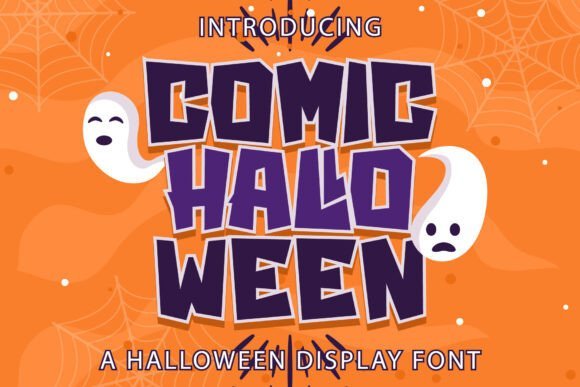
Spook Up Your Designs with Comic Halloween Font
As you sit down to create a spooky Halloween campaign, the blank page stares back at you. You want to evoke a sense of mystery and horror, but the words just aren’t coming together. The lights flicker, the wind howls, and you feel a shiver run down your spine – it’s the perfect time to break out a font that captures the essence of the season.
Enter Comic Halloween Font, a display font that conjures up images of classic horror movies and haunted mansions. With its gothic flair and eerie vibe, it’s the perfect addition to any design project. Whether you’re creating a logo, social media post, or event invitation, Comic Halloween Font will give your design a scary and gripping payoff.
As a designer, you’re always on the lookout for fonts that can elevate your work and set it apart from the crowd. Comic Halloween Font is a valuable addition to your toolkit, offering a unique and versatile style that’s perfect for Halloween-themed projects and beyond.
Comic Halloween Font Key Features
- Font Size: The font comes in a single size, but it is highly scalable and suitable for various font sizes.
- Resolution: The font is designed for use at high resolutions, making it ideal for print and digital applications.
- Unique Characteristics: The Comic Halloween Font features a spooky, hand-drawn design with intricate details and textures, giving it a unique and eye-catching appearance.
- Font Style: The font is a sans-serif, all-caps font with a bold and playful feel, making it perfect for titles, headings, and other display text.
Comic Halloween Font Review
Overall, I’d say the Comic Halloween Font is a fun, playful addition to any project, especially those centered around Halloween or comic books. Here’s what I like about it:
- ✨ Unique and quirky design: This font truly stands out with its bold, expressive lines and irregular shapes.
- ✨ Perfect for creating a spooky atmosphere: The Comic Halloween Font is ideal for any project that needs to convey a sense of eeriness or playfulness.
- ✨ Great for titles and headings: The font’s larger-than-life style makes it perfect for grabbing attention and adding emphasis to text.
- ⚠️ Limited character set: The font’s unique design comes at the cost of a limited character set, which may make it difficult to use for longer blocks of text.
- ⚠️ May not be suitable for formal projects: While the Comic Halloween Font is perfect for Halloween-themed projects or comic books, it may not be the best choice for more formal projects or those that require a more professional tone.
In conclusion, the Comic Halloween Font is a fun and unique addition to any project, but its limitations should be carefully considered before using it.
Comic Halloween Font is perfect for creating spooky and playful designs. Use it to create invitations, posters, and social media graphics for Halloween parties or events. You can also use it to add a touch of whimsy to your branding or marketing materials.
Great Vibes is a modern, cursive script font with a playful and whimsical feel. It’s great for titles, headings, and other emphasis in designs that require a touch of elegance and sophistication. When to use: weddings, baby showers, or other celebratory events.